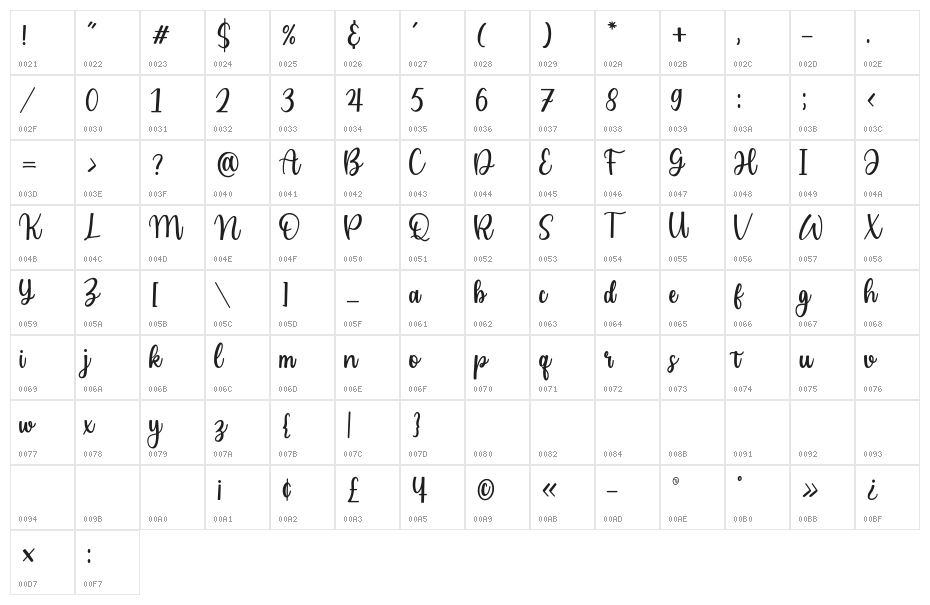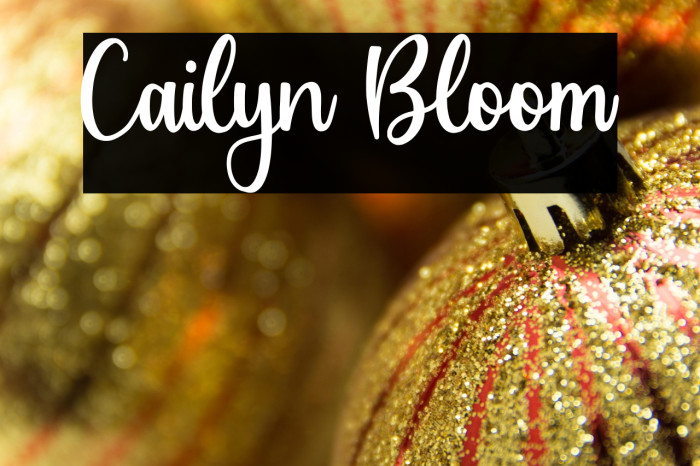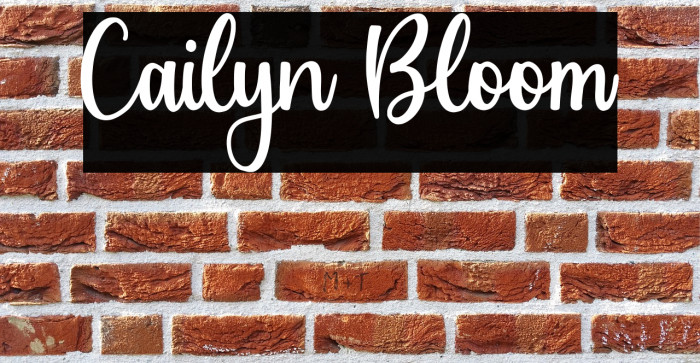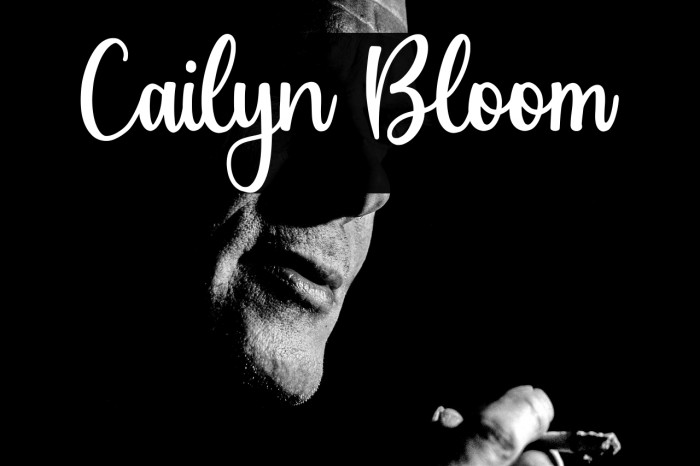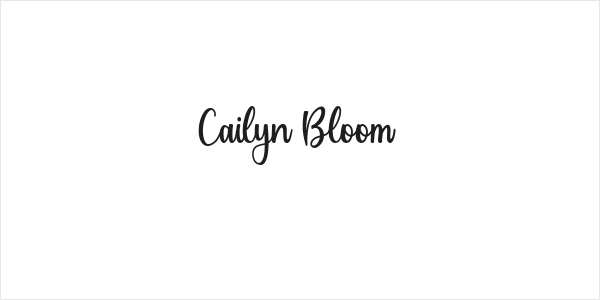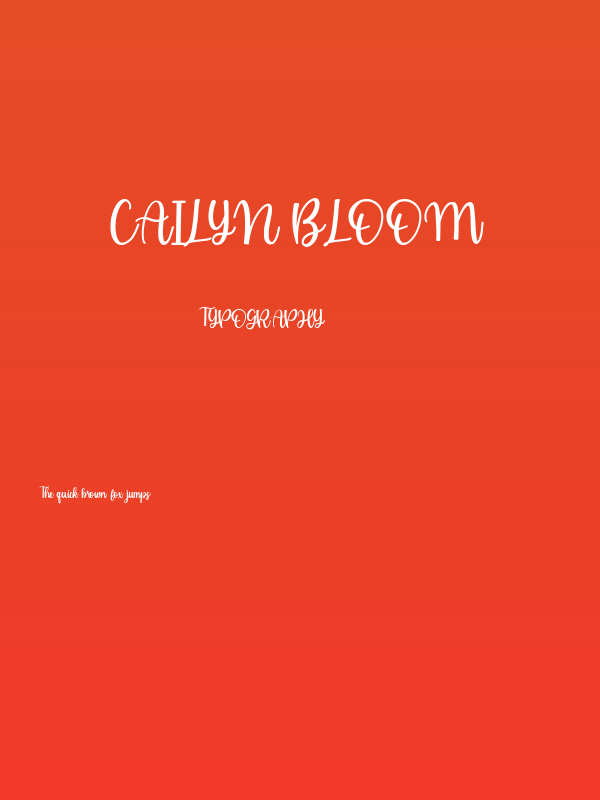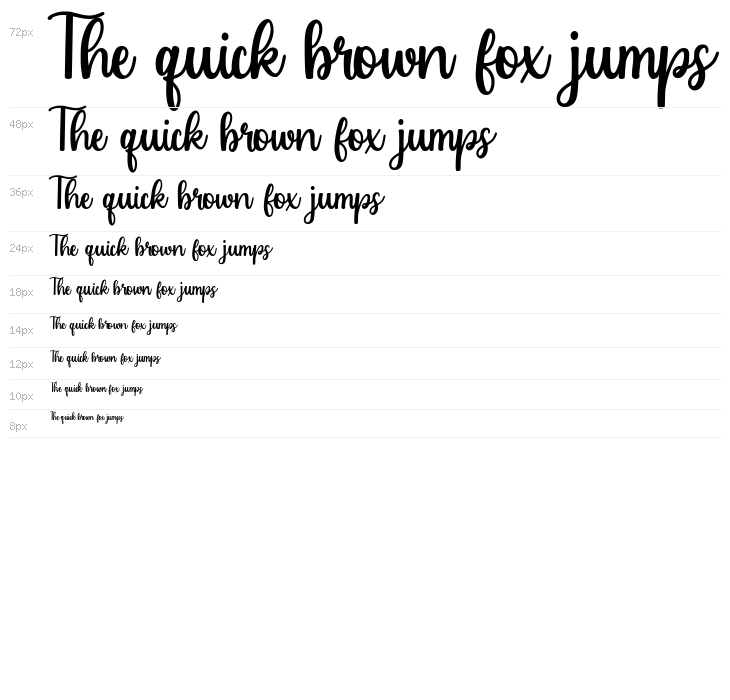
Cailyn Bloom Font
Cailyn Bloom Description
This font features a lively and flowing script style, characterized by its elegant curves and smooth connections between letters. The uppercase letters are bold and prominent, with a playful yet sophisticated flair. The lowercase letters maintain a consistent flow, enhancing readability while retaining a sense of artistic expression. Numbers and special characters are designed to complement the overall style, ensuring a cohesive look across all text elements. The font's design is versatile, making it suitable for a variety of creative projects.